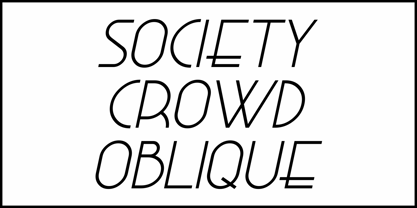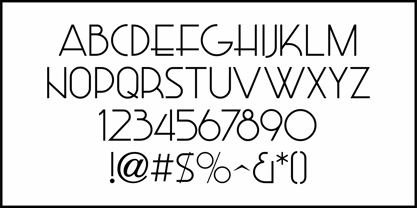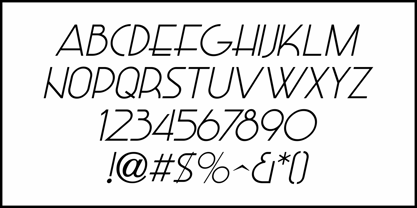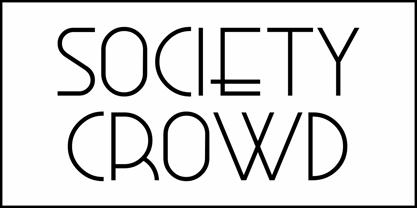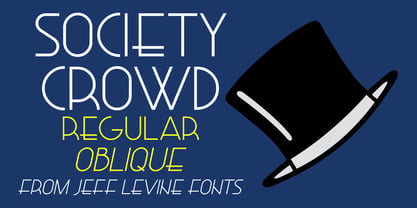
Society Crowd JNL
by Jeff Levine
The International Casino (restaurant, bar and night club-theater) operated from Sept. 17, 1937 thru Jan. 12, 1940 between 44th and 45th Streets on Broadway. It operated under various managements and financial pressures. It was originally owned by Joseph H. Moss and its last management was by a Boston night club syndicate whose directors included Alex Finn, Chester H.Canning and Joseph Kennedy.
From December 4, 1940 until 1977 the space was utilized by Bond Clothes.
It was one of the neon signs found on the exterior of the building that inspired Society Crowd JNL, and it is available in both regular and oblique versions.
Jeff Levine has been in love with lettering since the third grade, when a schoolmate brought a lettering stencil into class. He has worked in both the graphics and music industries, and began his work with digital type via his own site, which hosted over one hundred free dingbat fonts until its retirement in 2009. Although these fonts were experimental at best, Jeff received "thank you" letters from points all over the world for making his designs available. Encouraged by these responses, Jeff decided to set his sights on creating interesting and commercially viable type fonts.